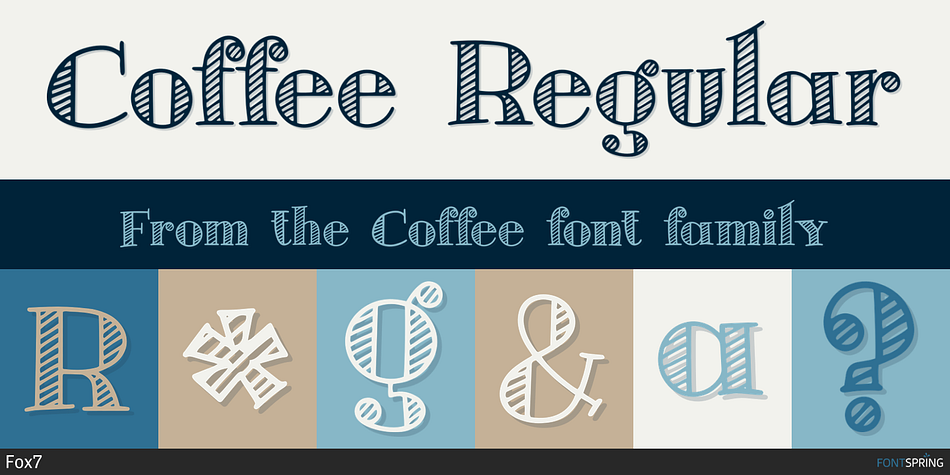
Coffee Regular
Coffee is a font family published by Fox7.
Coffee font is a cute and fun Display font. It can be used in a variety of ways, whether it’s a children’s theme, a menu event, cards, or even a Halloween theme, it can be used very well. Add this beautiful display font to each of your creative ideas, and notice how it makes them stand out!